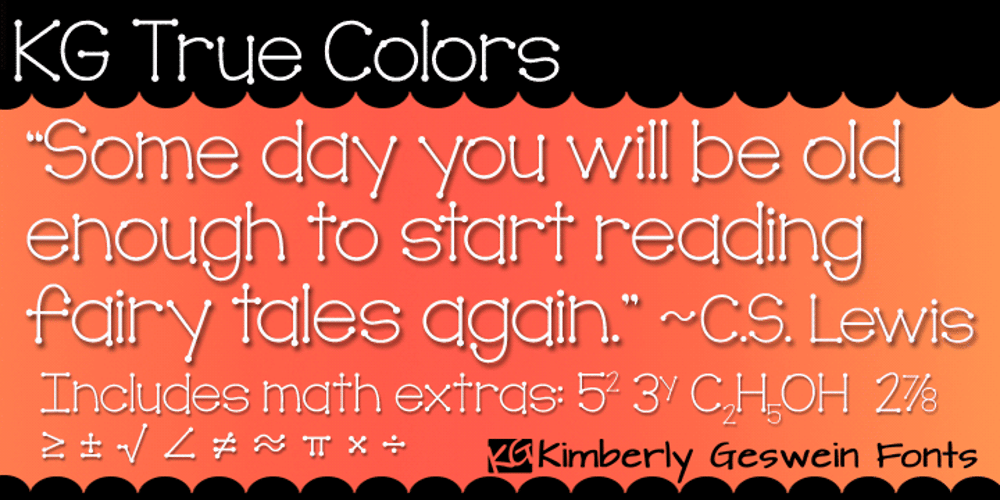
KG True Colors Font Family was designed by Kimberly Geswein and published by Kimberly Geswein. KG True Colors contains 1 styles and family package options. This teacher-friendly polka-dotted font is perfect for kids and teachers. It is fun but still perfectly neat and legible for little readers.